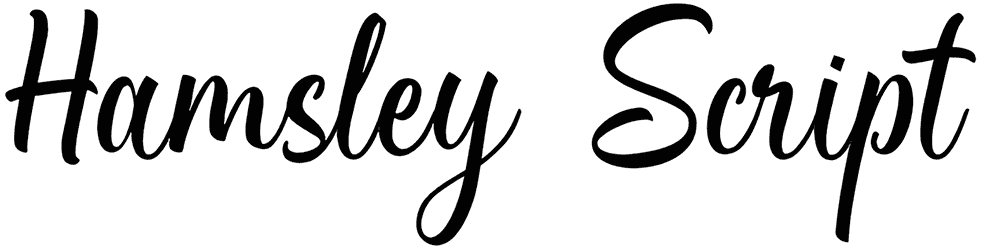
Hamsley Script Font
Classical texts are always so popular, and Hamsley Script can be one of them. This script font, with its realistic and sleek style, would be a perfect item for any official or unofficial project. Put this script font on your upcoming designs, for example, posters, presentations, cards, planners, logos, or others, and lend a delightful vibe to them.